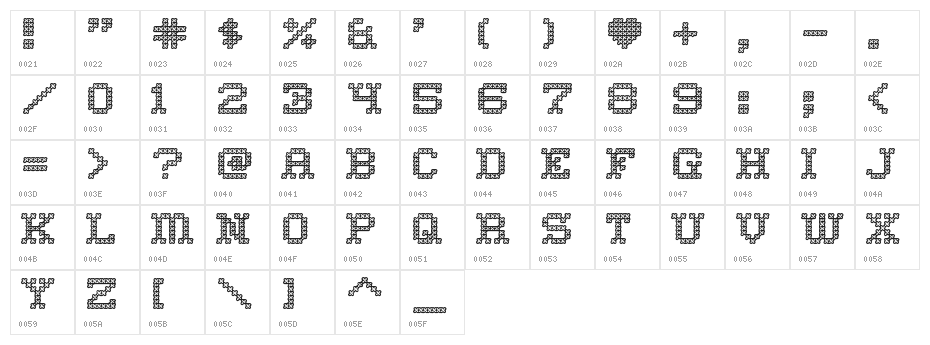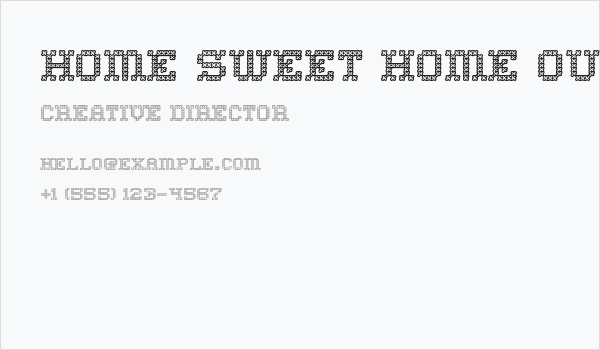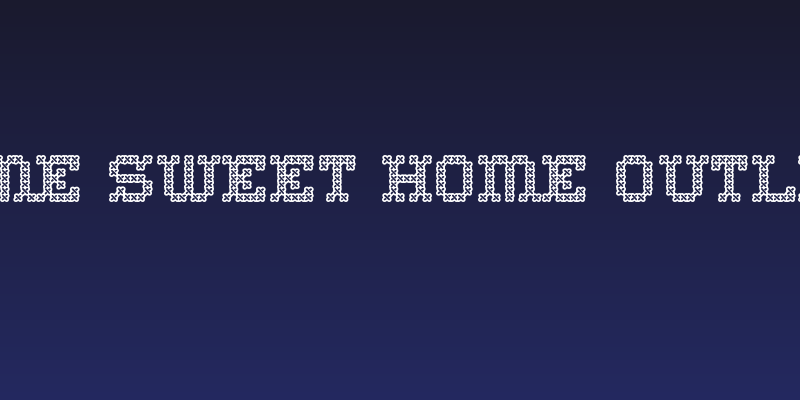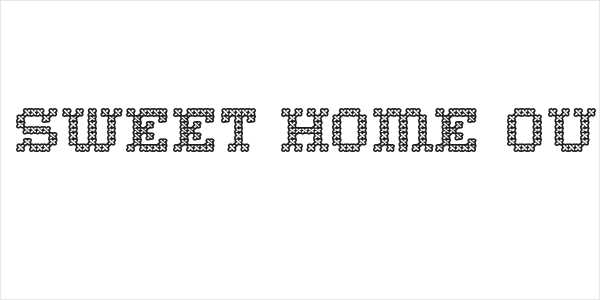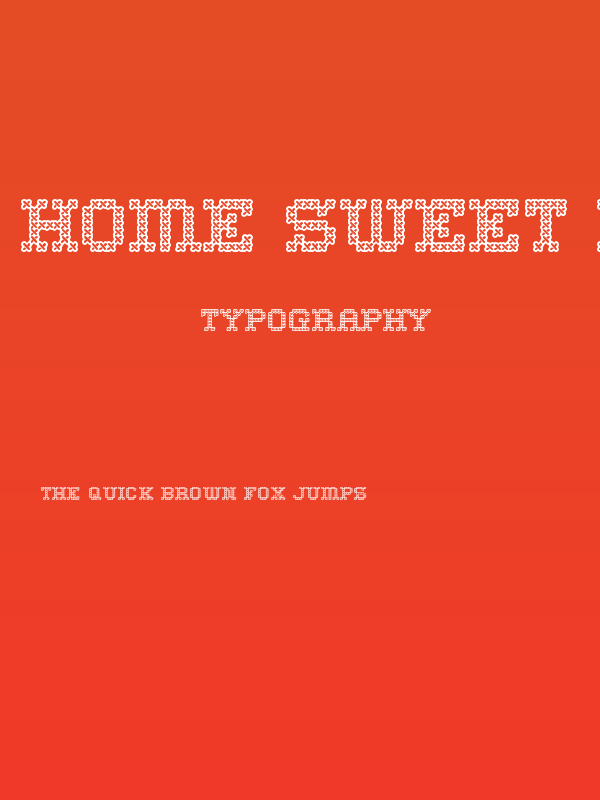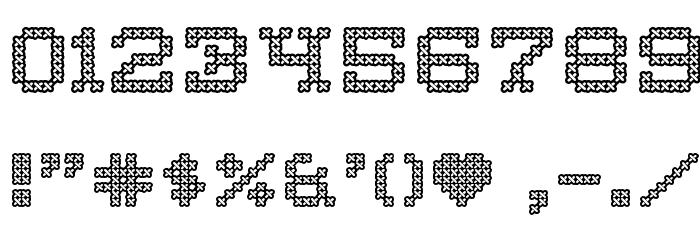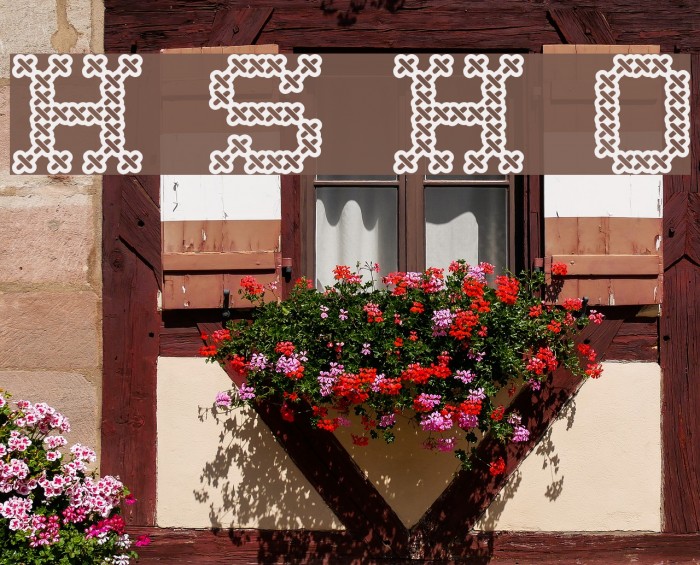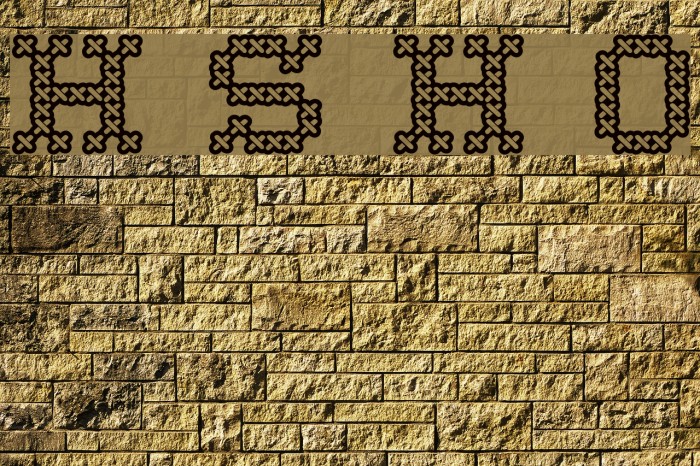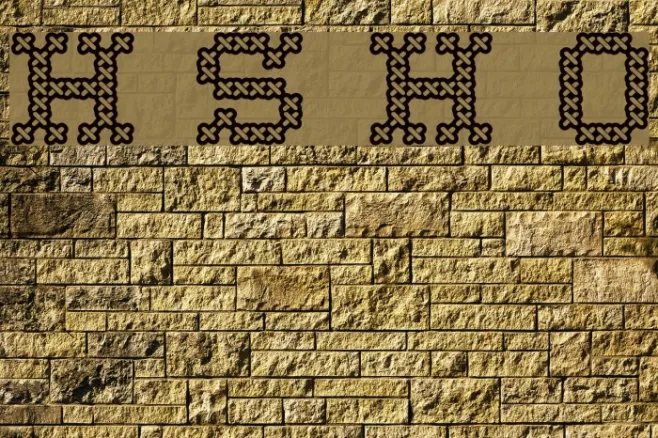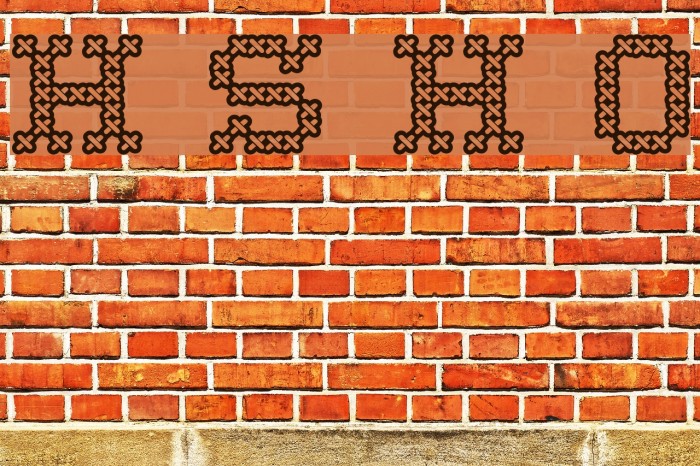
Home Sweet Home Outline Font
Home Sweet Home Outline Description
This font features a unique, decorative outline style that resembles a cross-stitch pattern. Each character is composed of small, interconnected 'X' shapes, giving it a textured and handcrafted appearance. The uppercase and lowercase letters maintain a consistent design, with a playful and artistic flair. The numerals and special characters follow the same pattern, ensuring a cohesive look across all elements. This font's intricate design makes it stand out, ideal for projects that require a touch of creativity and uniqueness.
| Use Case | Logos, Headlines, Posters |
| Proposed Projects | Ideal for craft projects, DIY invitations, home decor signage, and creative branding. |